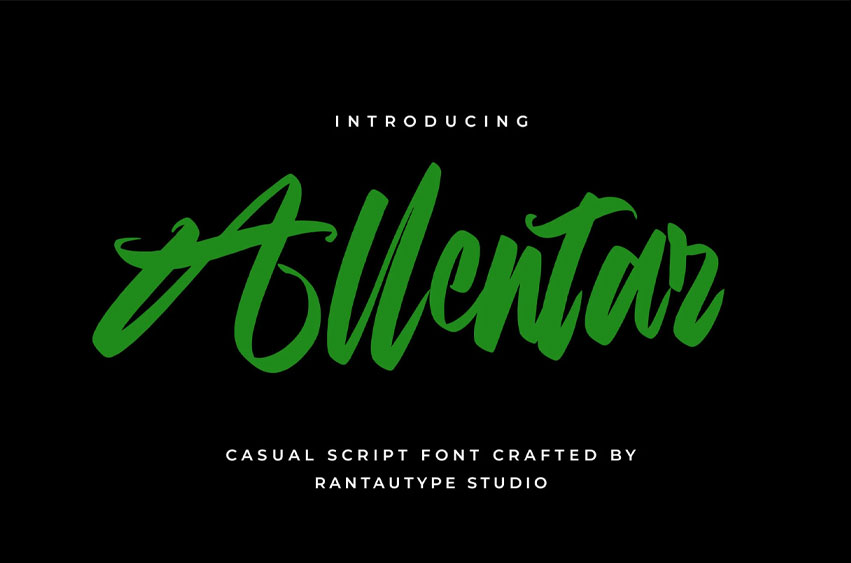
Allentar Font is a casual script font made by Rantautype Studio. Allentar comes with a bold and stylish character to make your design project awesome. Allentar is a perfect choice for any creative endeavor, chic, lifestyle design, such as logotype, advertisements, watermark on photography, stationery, branding project, display and magazine, invitation, corporate brand, product design, label, business project, and many other projects with a modern touch.